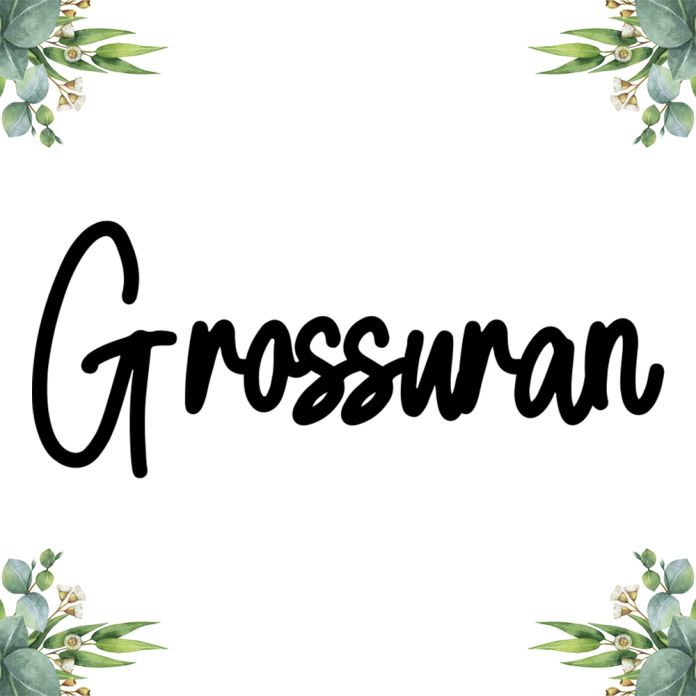
Grossuran is a delicate, elegant and flowing handwritten font. It has beautiful and well balanced characters and as a result, it matches a wide pool of designs. Add it to your most creative ideas and notice how it makes them come alive!